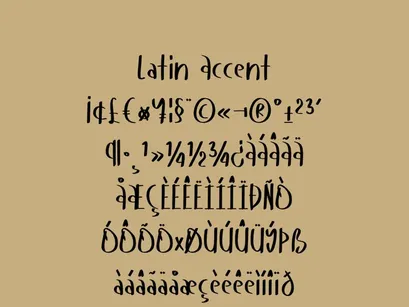
HATHEE
HATHEE is a modern handwritten typeface with tall, thin, and slightly irregular strokes that evoke an artistic and relaxed style.
Its elegant yet spontaneous structure makes it ideal for nature-themed, eco-friendly, or inspirational projects.
Perfect for motivational quotes, artisanal branding, organic packaging, and warm, human visual content.